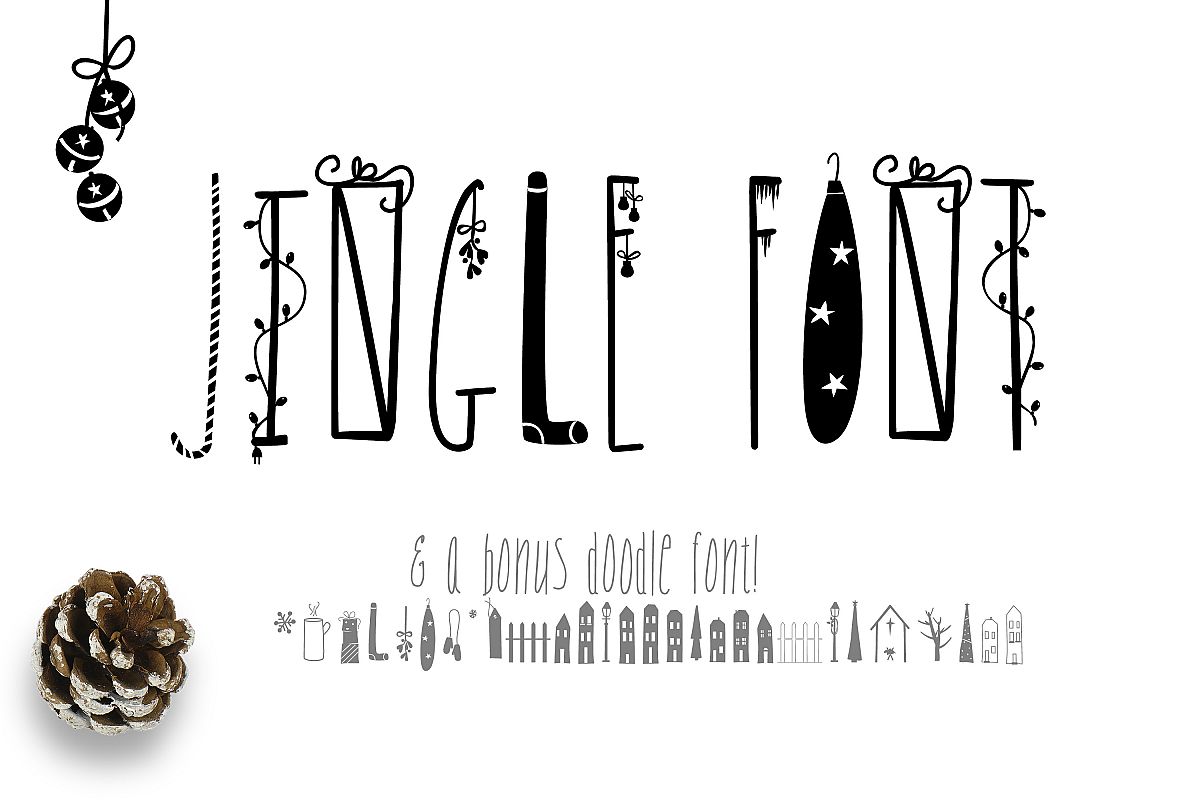
JINGLE FONT - a Christmas Typeface with Bonus DOODLES
Jingle Font:
• Uppercase letters are decorated for Christmas
• Lower case letters are a hand written legible typeface
• Some Uppercase letters may be to detailed for cut files but may be replaced with lower case letters
Jingle Doodles:
• Over 70 Fun Christmas and Winter hand drawn doodles
• Christmas presents, houses, trees, lamp posts, manger scene, stars, snowflakes, tags, mittens, and more!